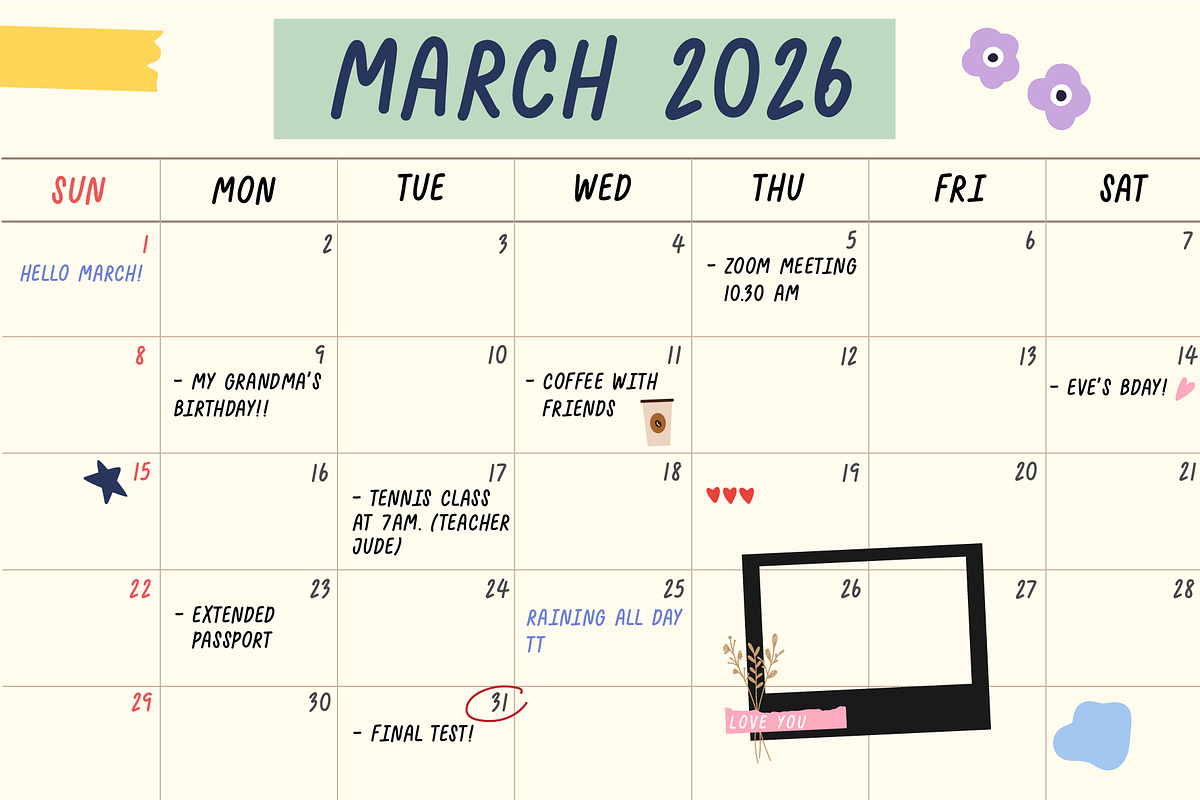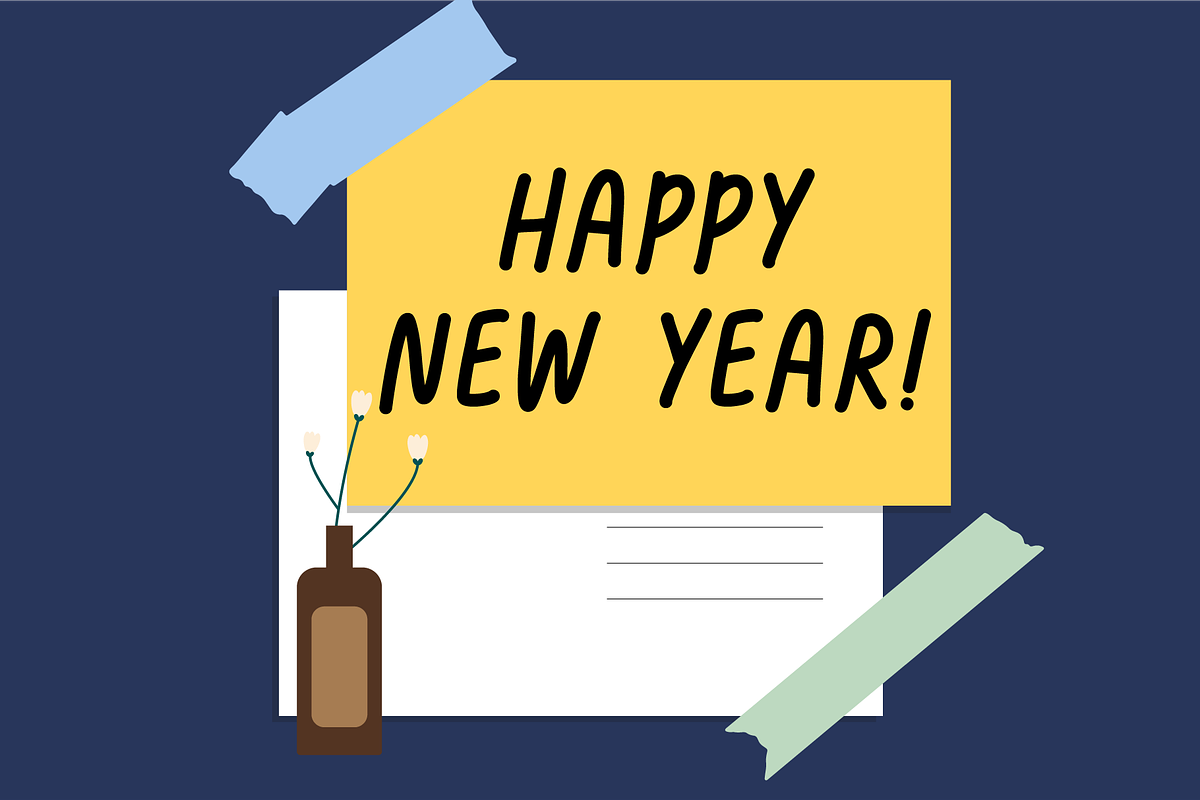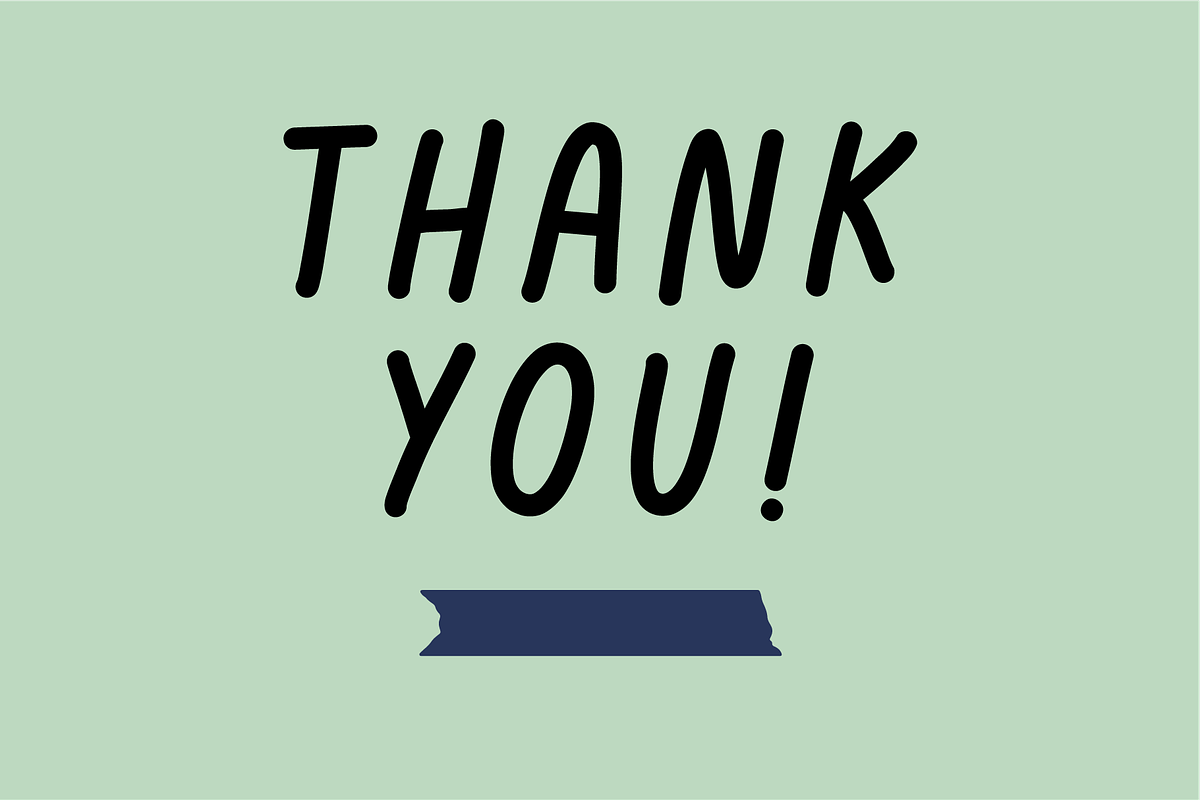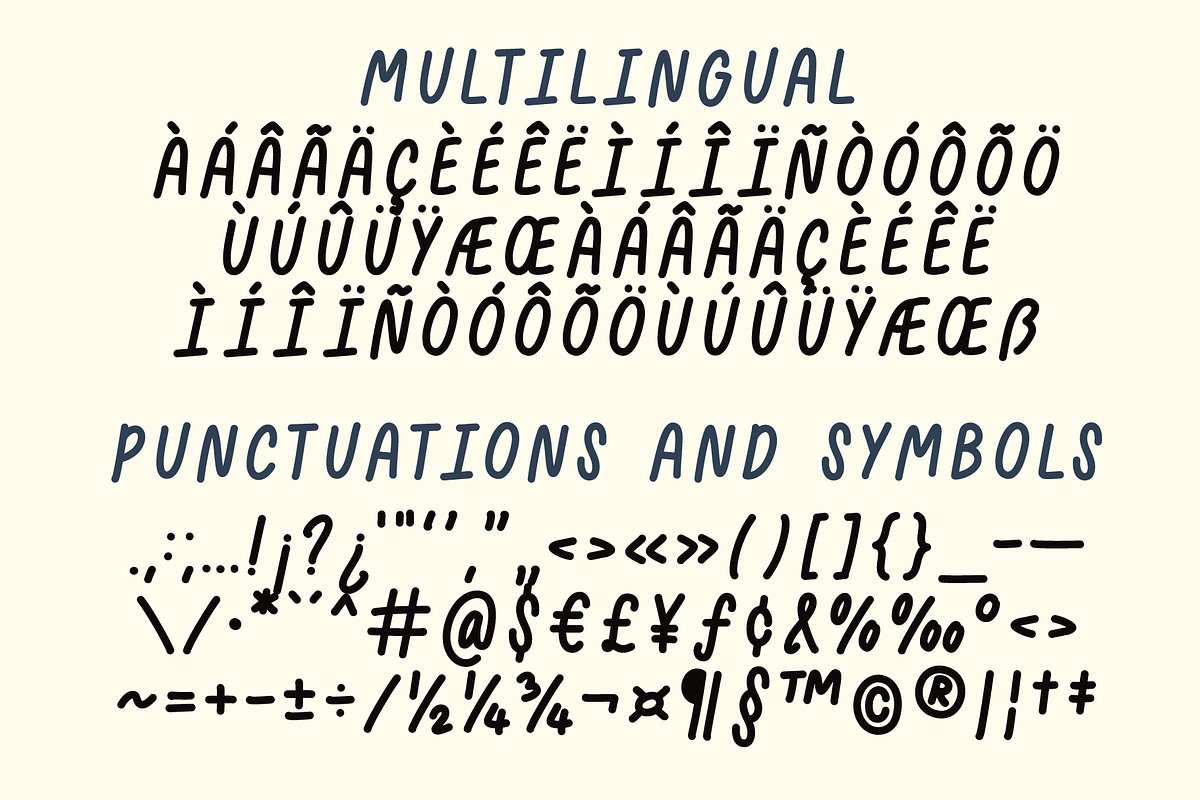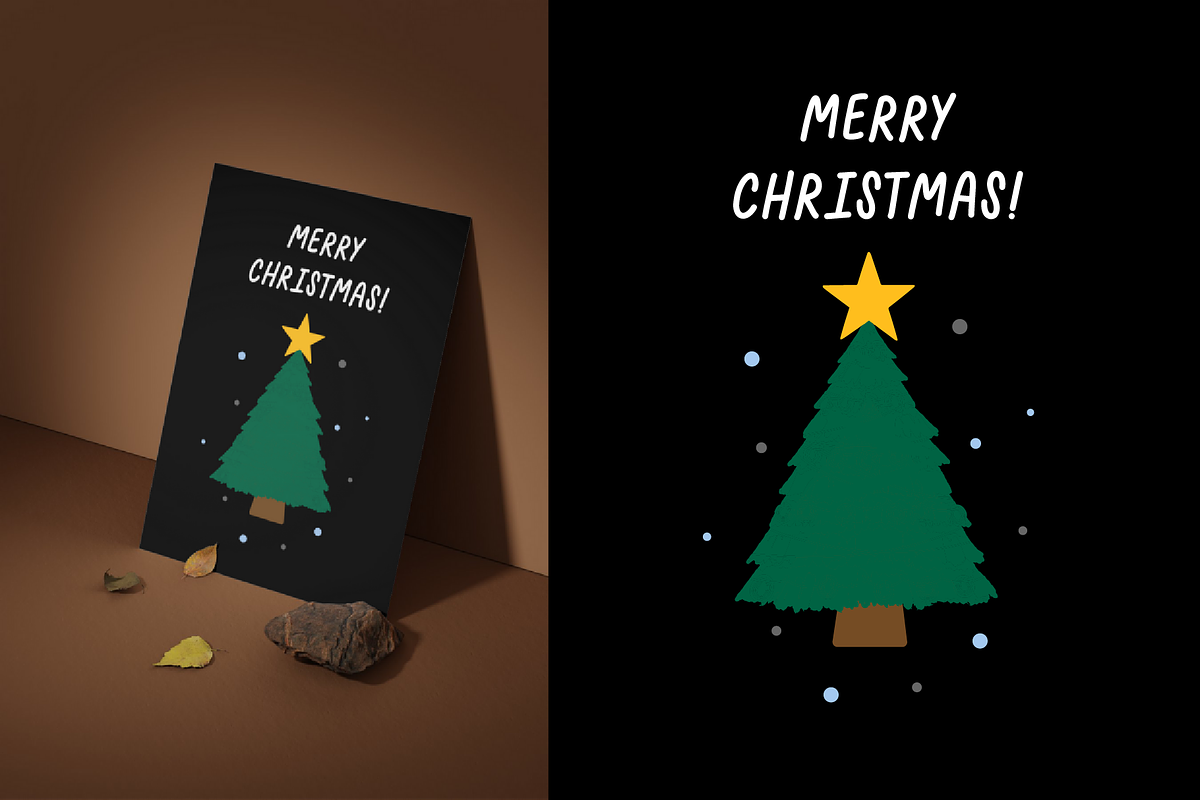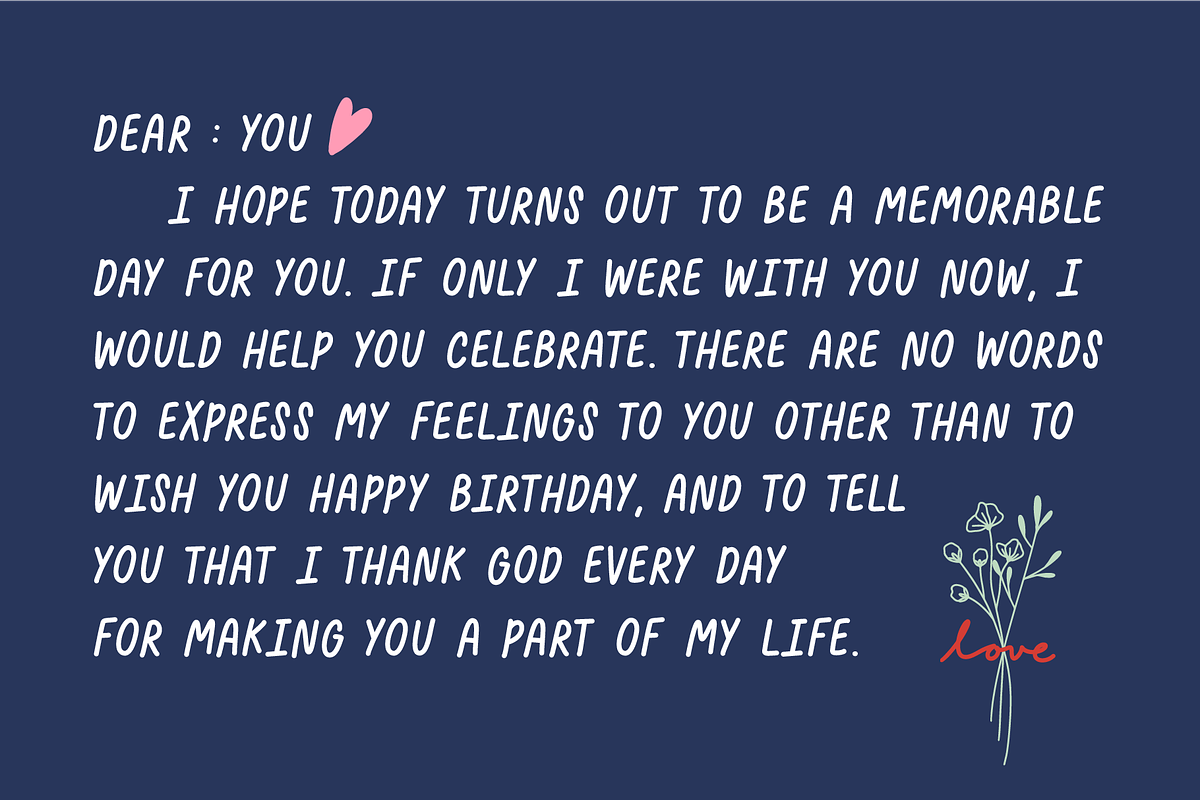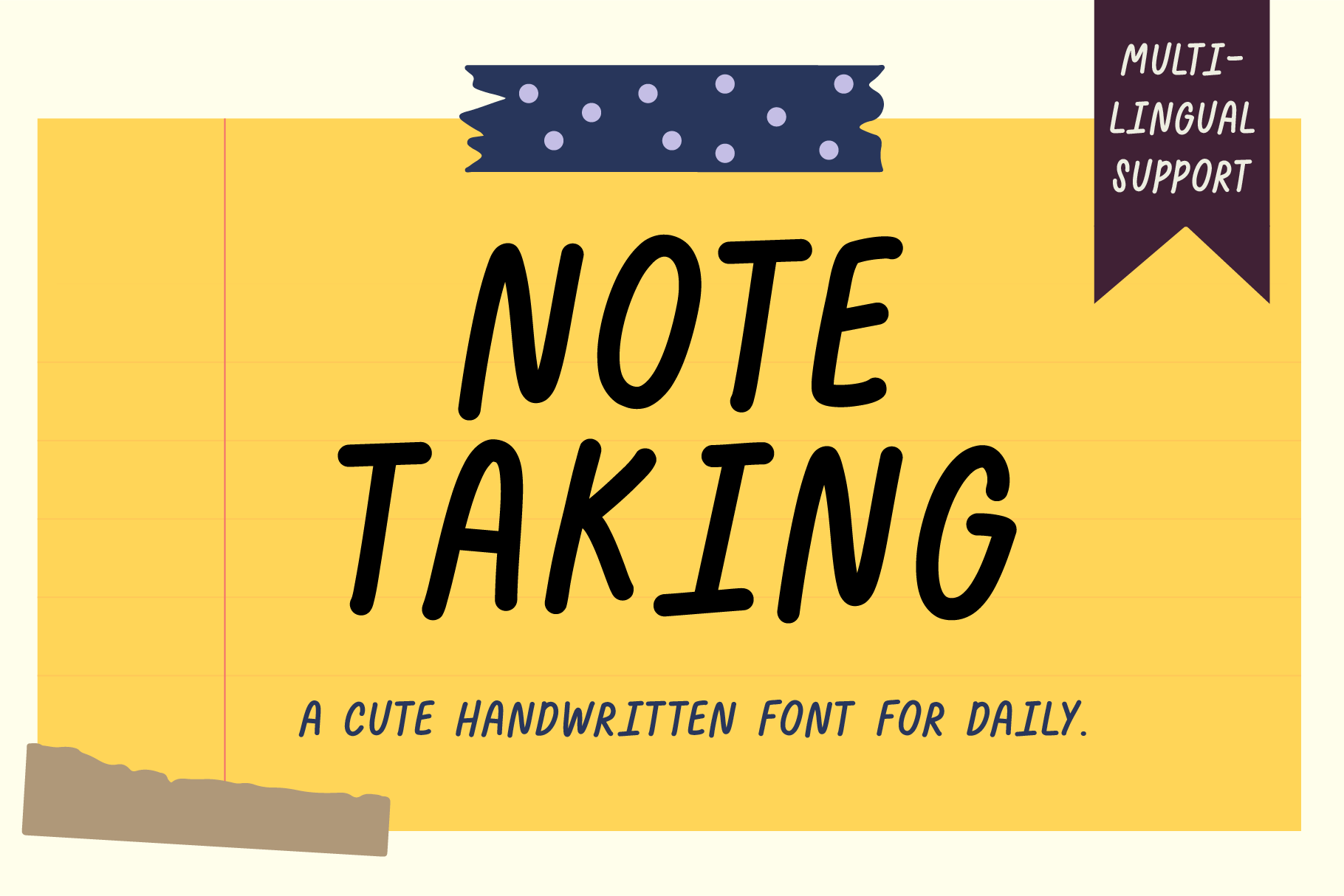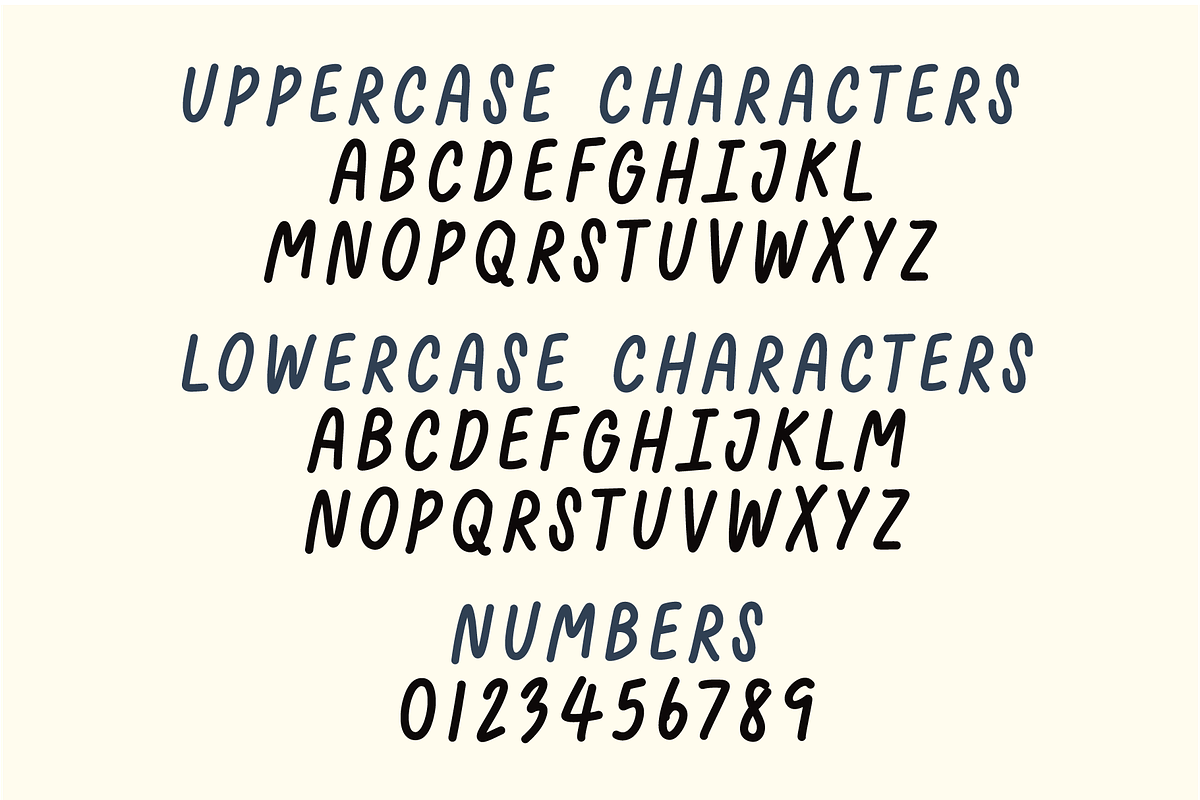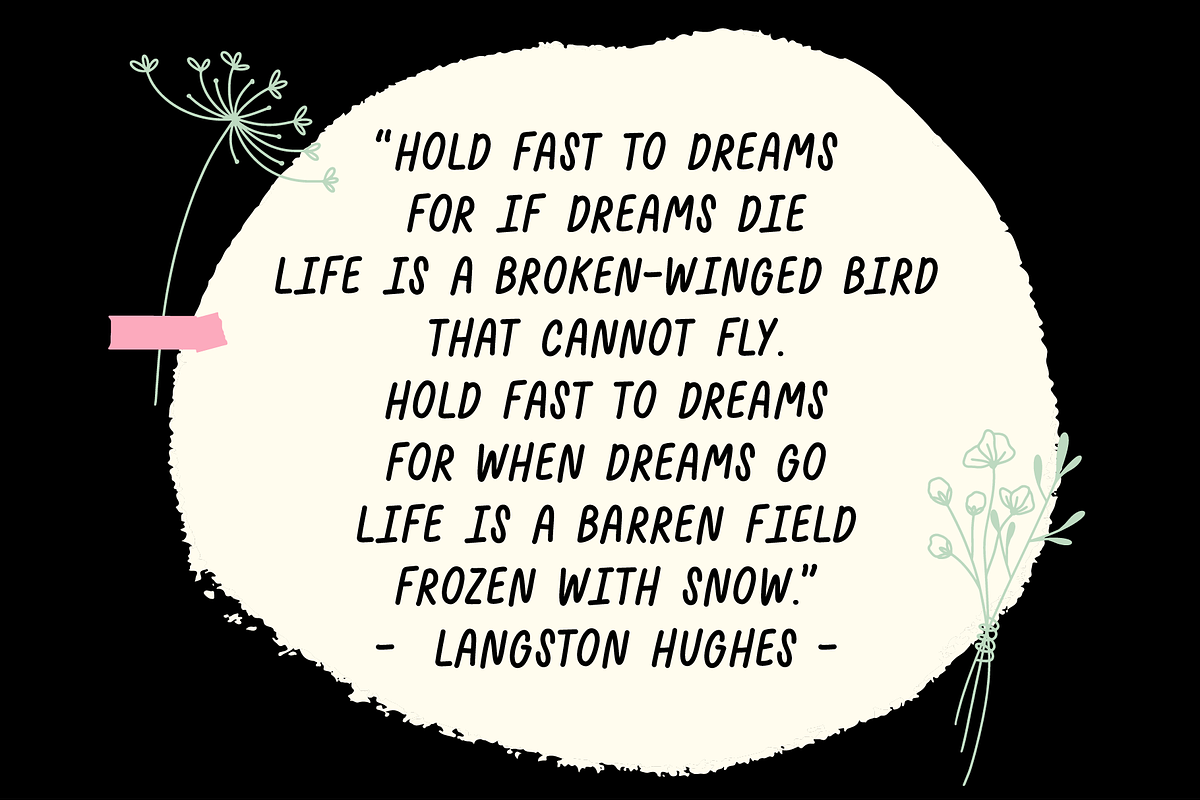
Note taking font
NOTE TAKING is a cute handwritten font. Perfect for everyday note taking such as writing diary or note, creating posters, logos, greeting cards, packaging and so much more!
Note taking Font Features:
- Extended punctuation.
- Multilingual Characters support.